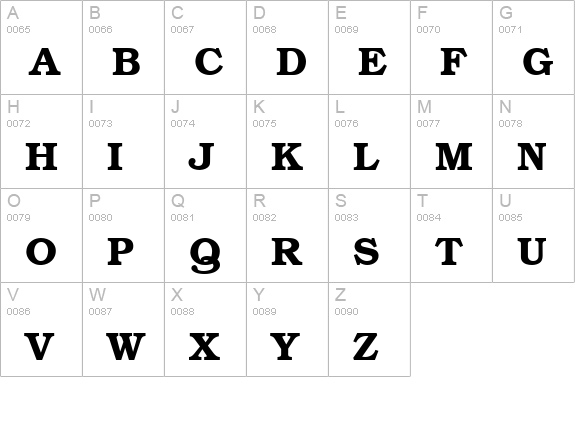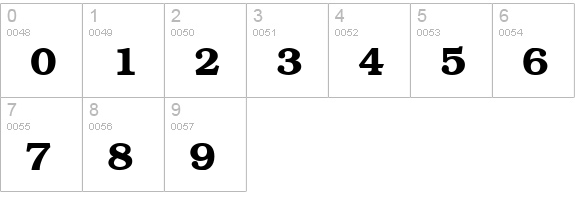
Brooklyn Bold is a strong, high-contrast variant in the Brooklyn typeface family \xE2\x80\x94 well suited to headlines, attention-grabbing titles, and strong calls-to-action.
Introducing Brooklyn Bold font, a sleek and modern typeface designed to make a bold statement. With its strong and distinctive characters, this font is perfect for creating eye-catching headlines, logos, and branding materials. The Brooklyn Bold font exudes confidence and strength, making it ideal for projects that require a touch of boldness. Best of all, the Brooklyn Bold font is available for free download at FontsMarket.com. Whether you're a designer looking to add a powerful element to your projects or a business owner seeking a font that will help your brand stand out, Brooklyn Bold is the perfect choice. Download it today and unleash the bold potential of this striking typeface.